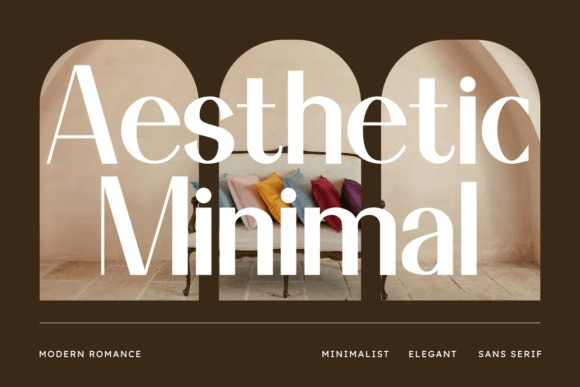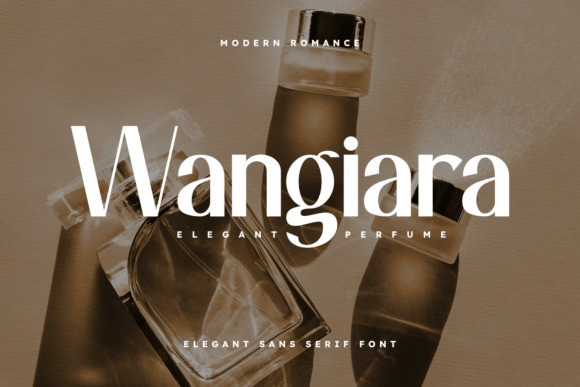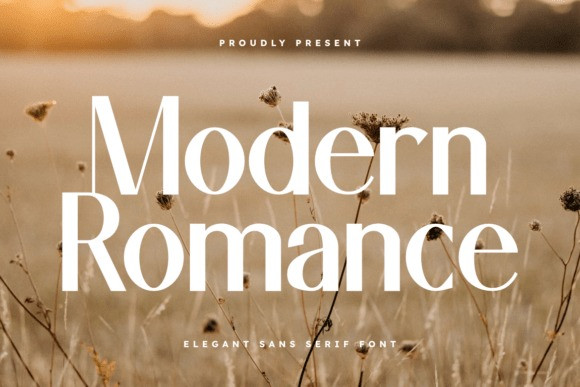
Modern Romance Typeface
Modern Romance Typeface is an exquisite sans serif typeface that masterfully blends contemporary minimalism with a romantic, high-fashion flair. Defined by its elegant proportions and refined strokes, this font is designed to bring a touch of luxury and sophistication to any creative project.
Whether you are designing a sleek corporate identity, a high-end magazine layout, or sophisticated event invitations, Modern Romance offers the perfect balance of readability and stylistic character.